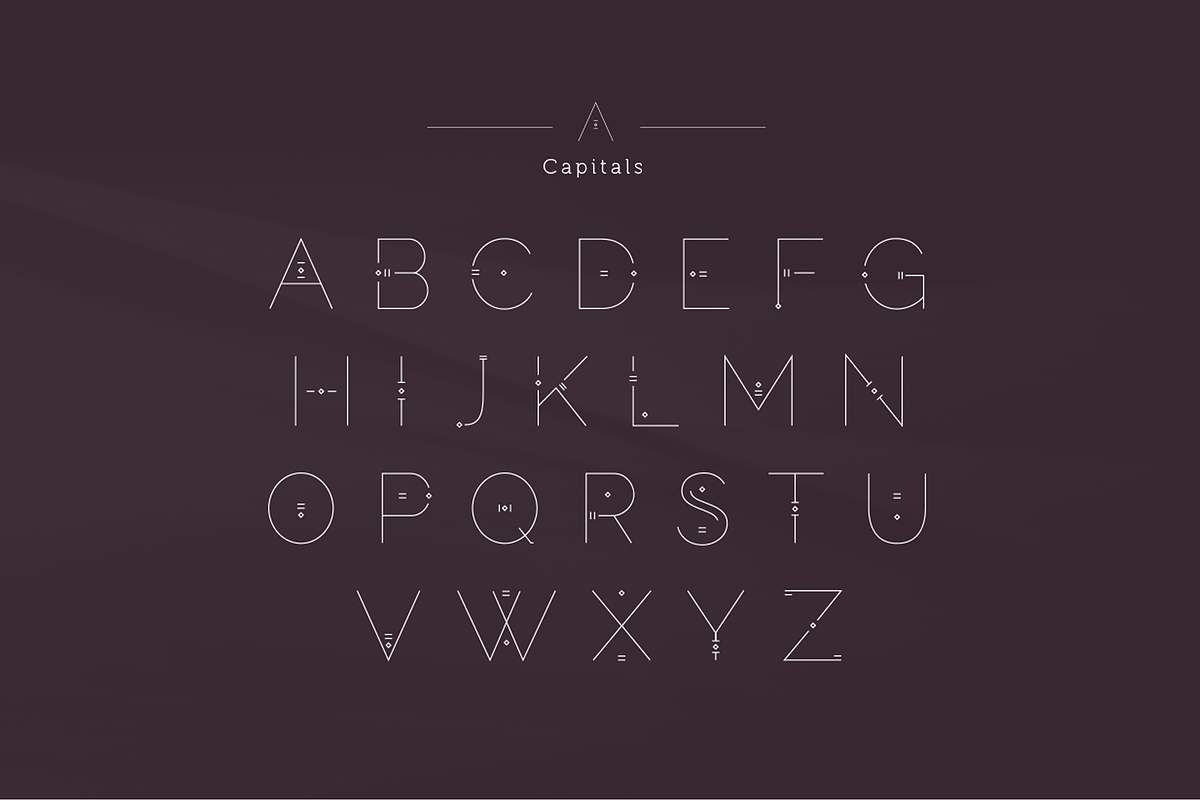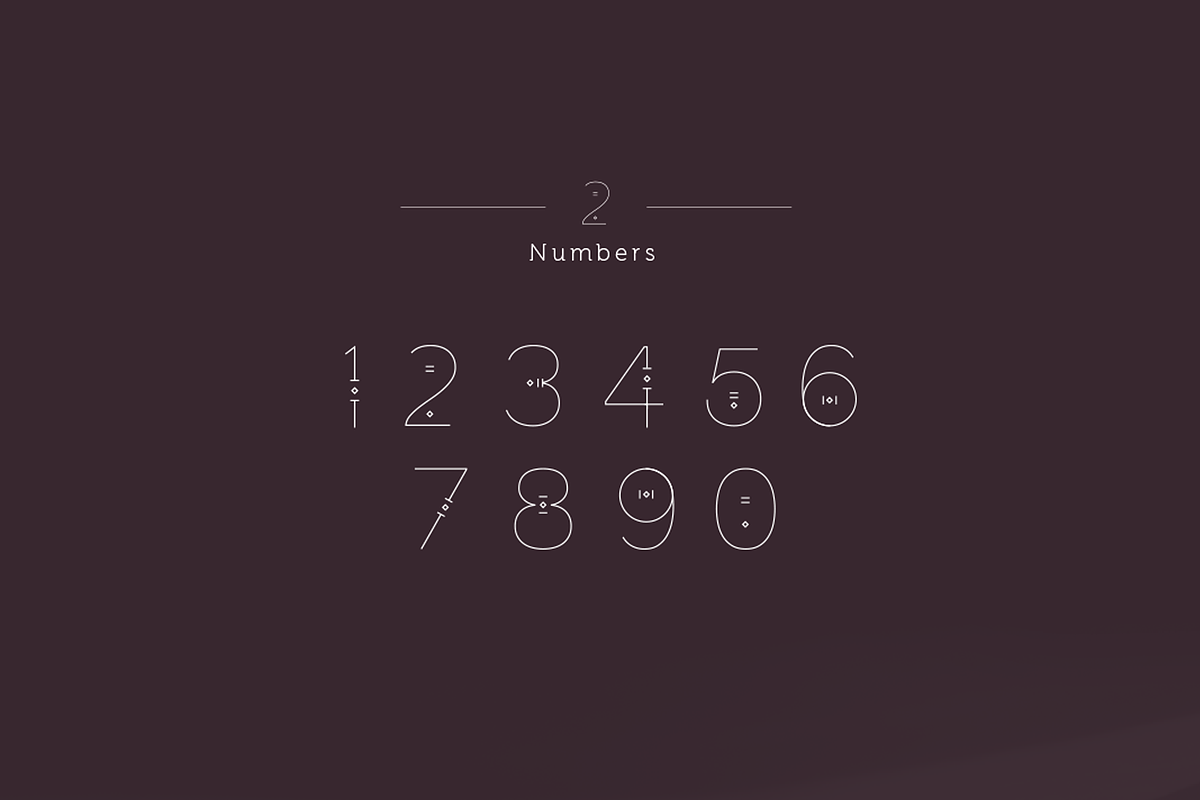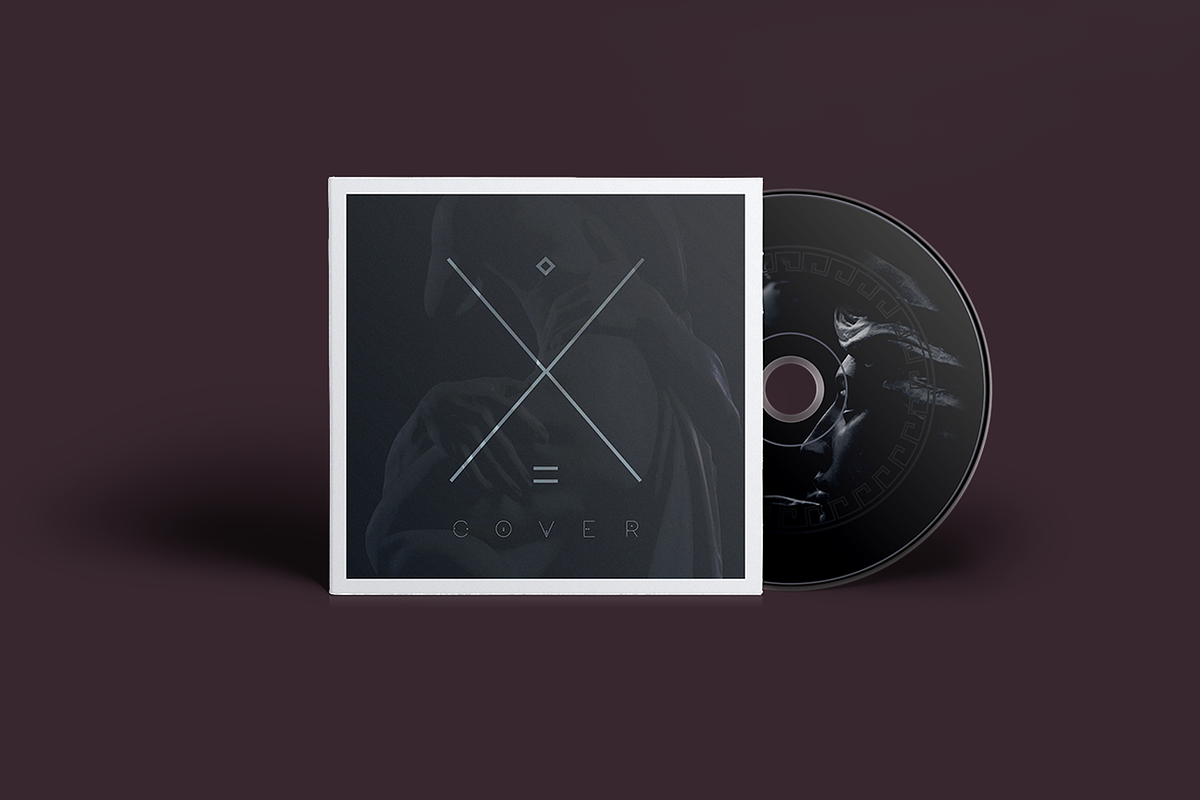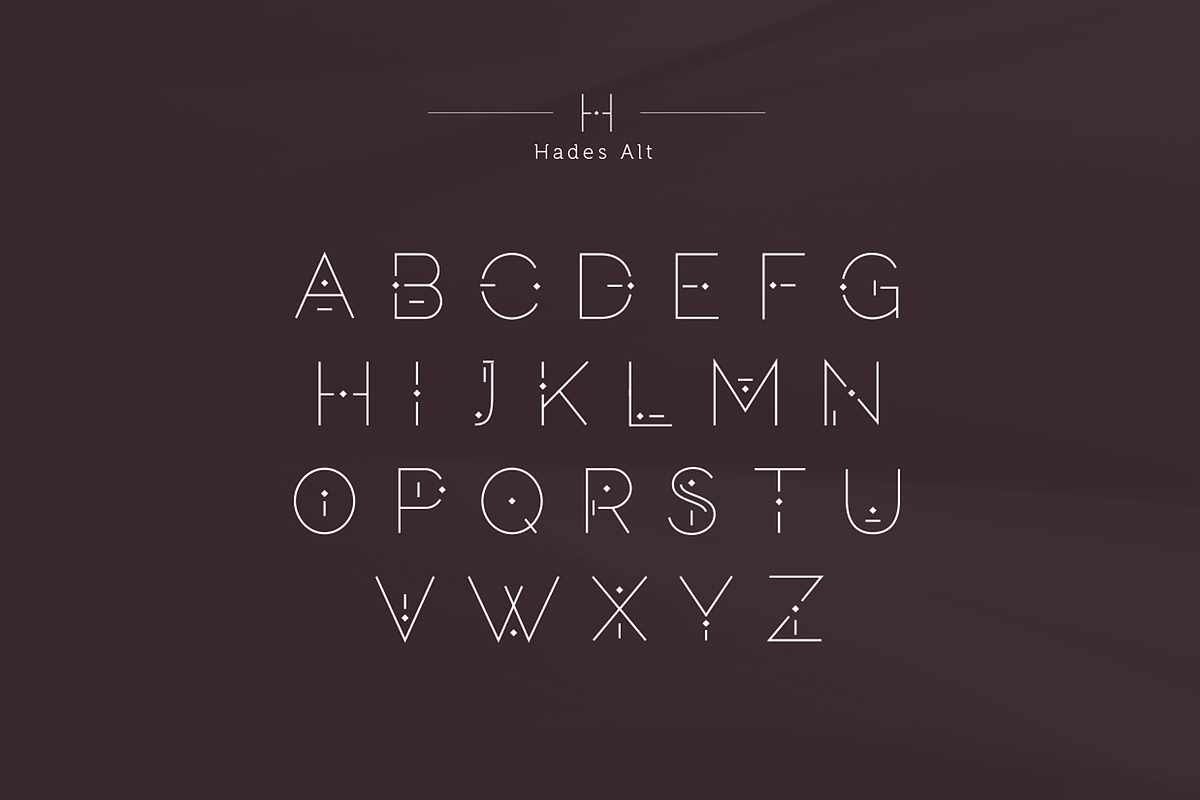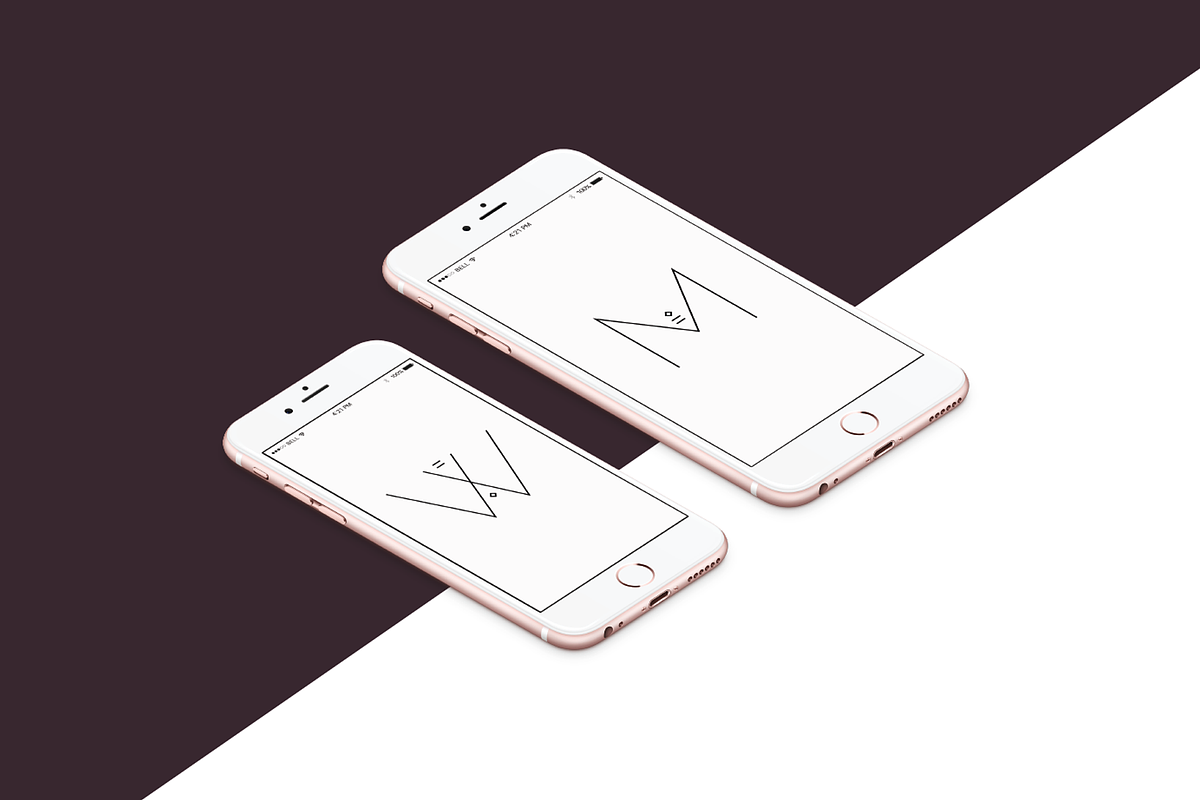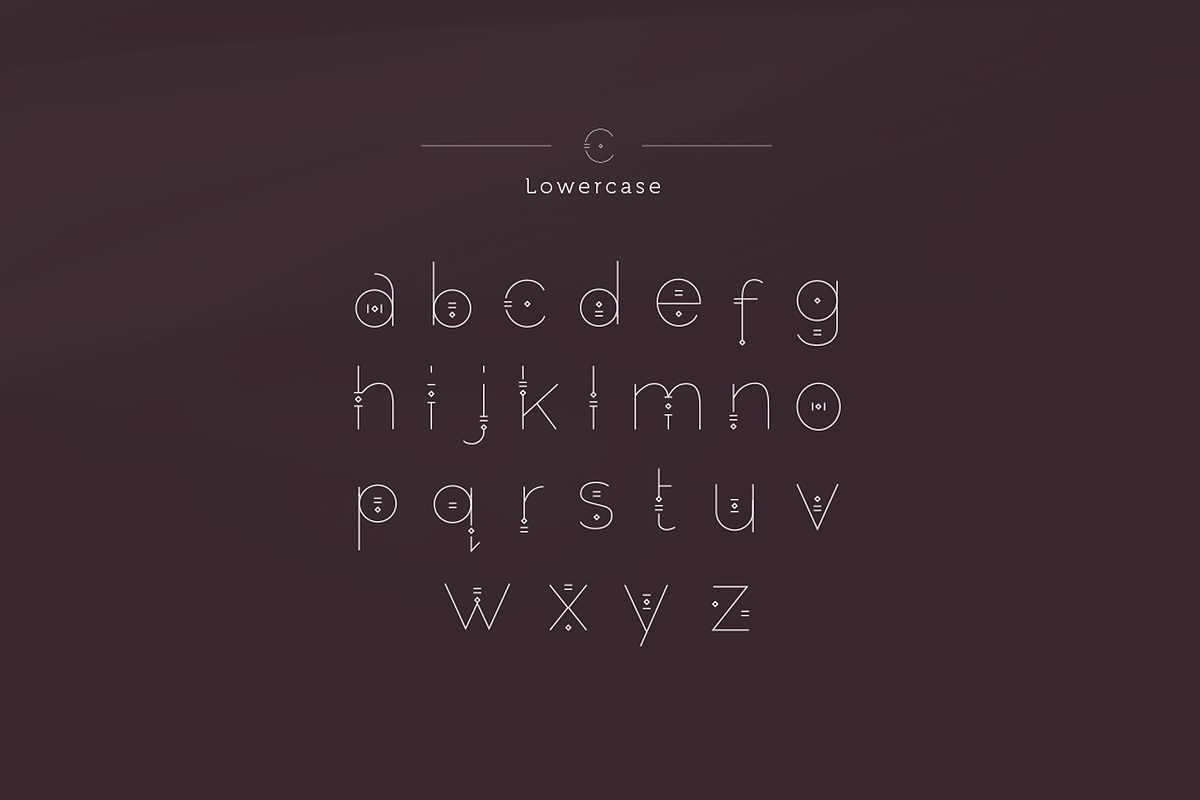
Persephone | Display Font
Persephone is a geometric typeface inspired by Greek mythology. Its stylistic elements, unique shape and proportions lends an archaic and mystical feel